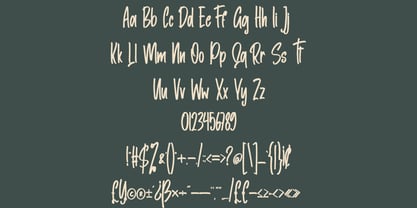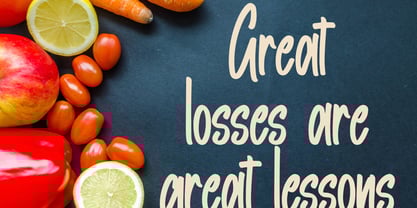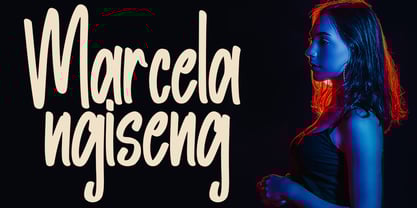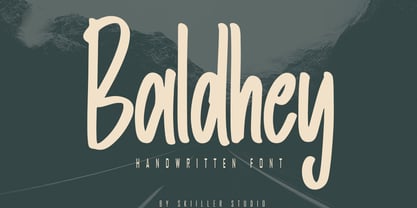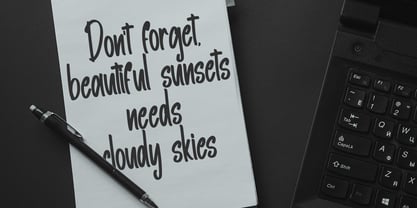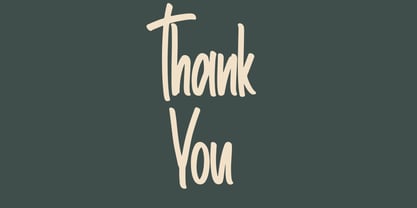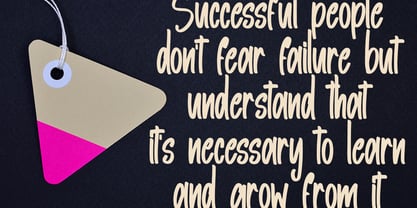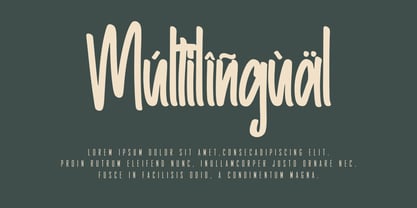
Baldhey
by Skiiller Studio
The Baldhey Font Family was designed by Irfan Mahmudin and published by Skiiller Studio. Baldhey contains 1 styles.
Baldhey is a bold handwritten font featuring tall strokes, smooth curves, and a natural hand-drawn feel. Its expressive letterforms create a warm and energetic personality, perfect for branding, posters, quotes, logos, invitations, packaging, and social media visuals. With its casual yet confident style, Baldhey adds a modern handcrafted touch that stands out in any creative project.
Designers: Irfan Mahmudin
Publisher: Skiiller Studio
Foundry: Skiiller Studio